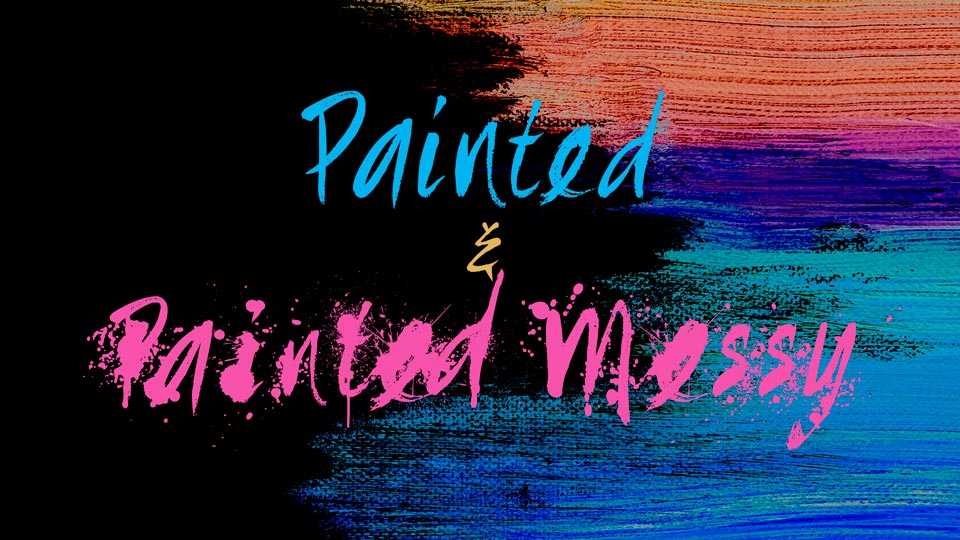
Download Painted & Painted Messy fonts, a hand painted typeface in two styles – plain and messy. Painted fonts perfectly fit for branding and merchandise, creative posters, banners and other display purposes.